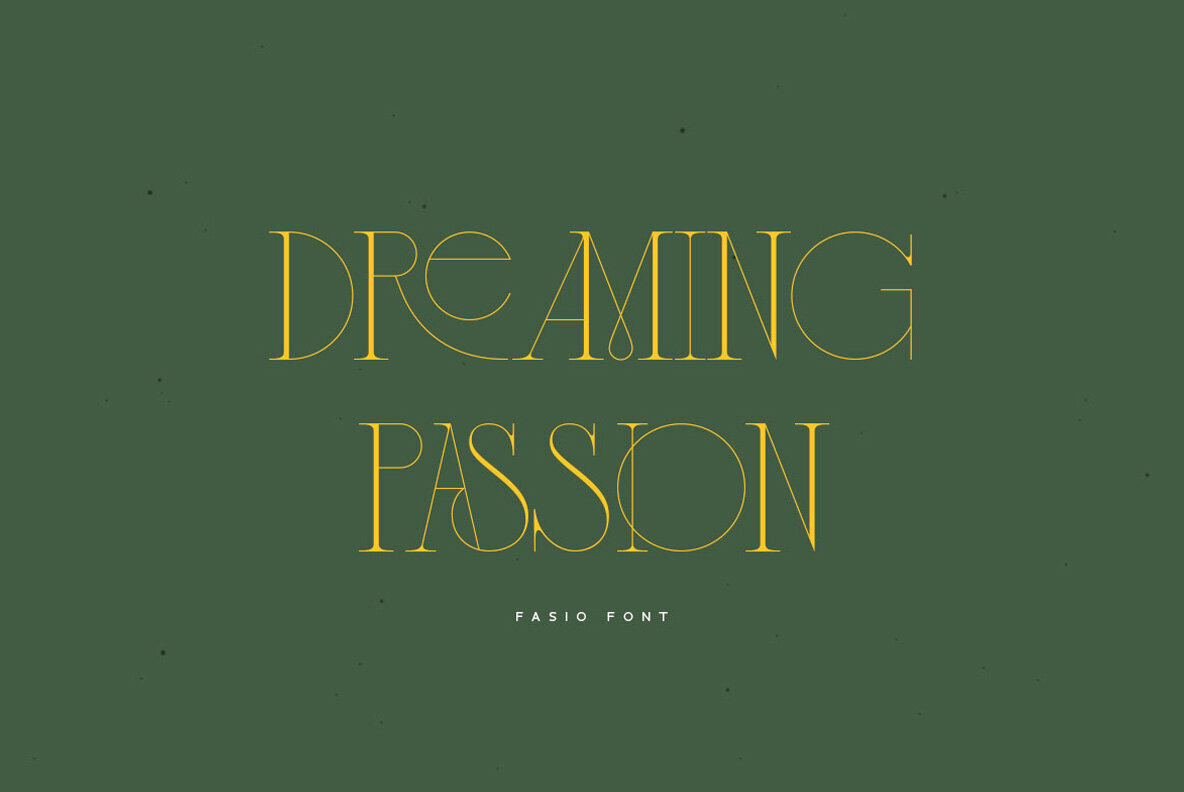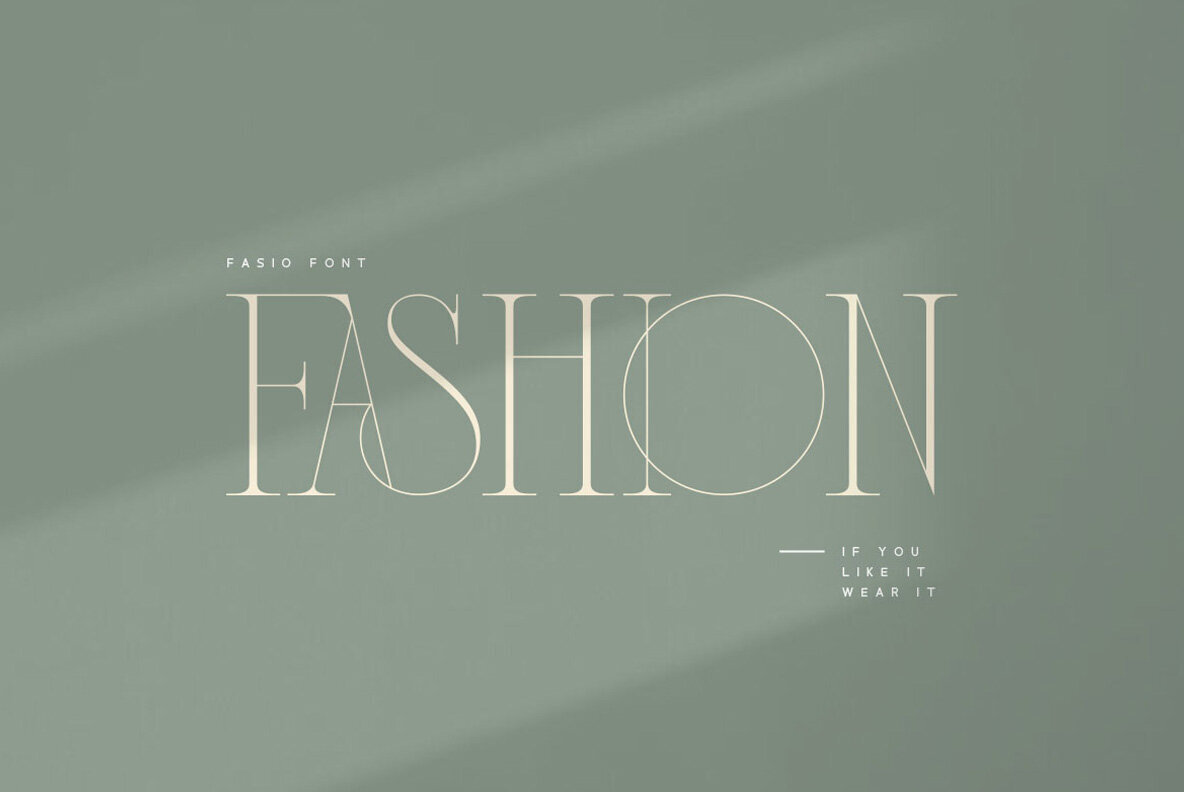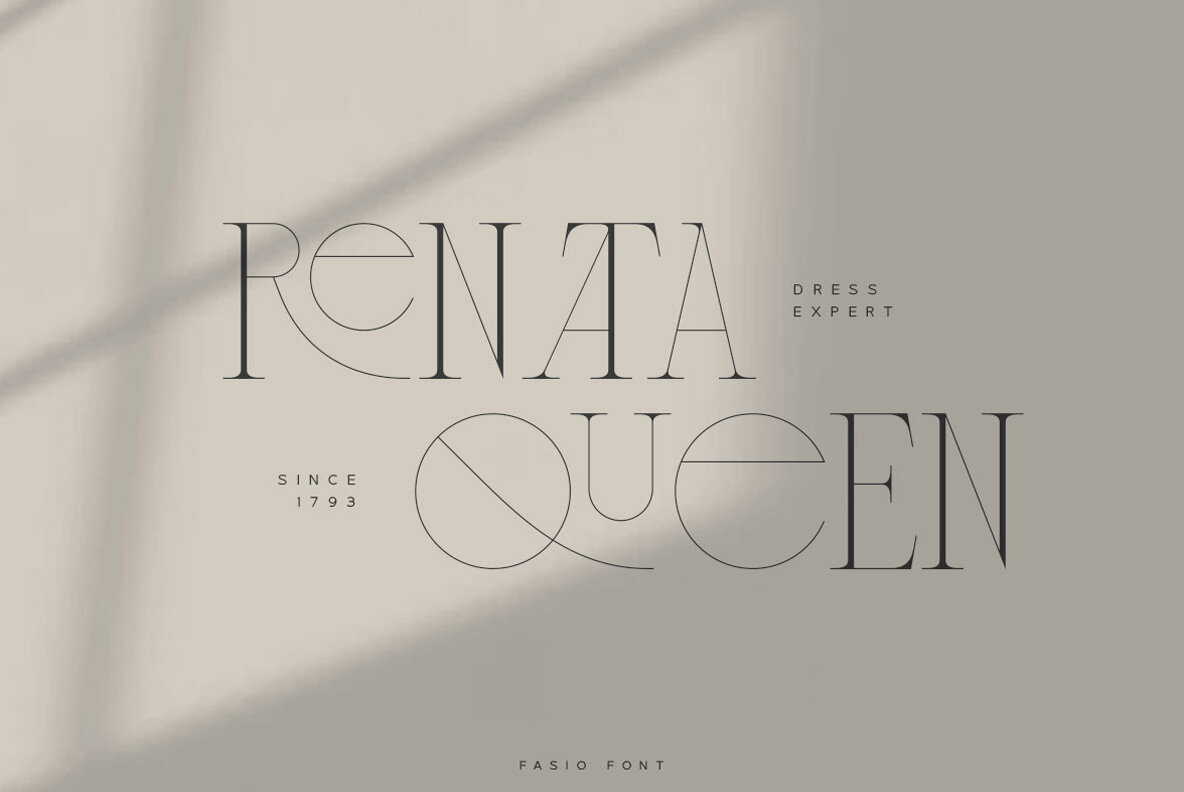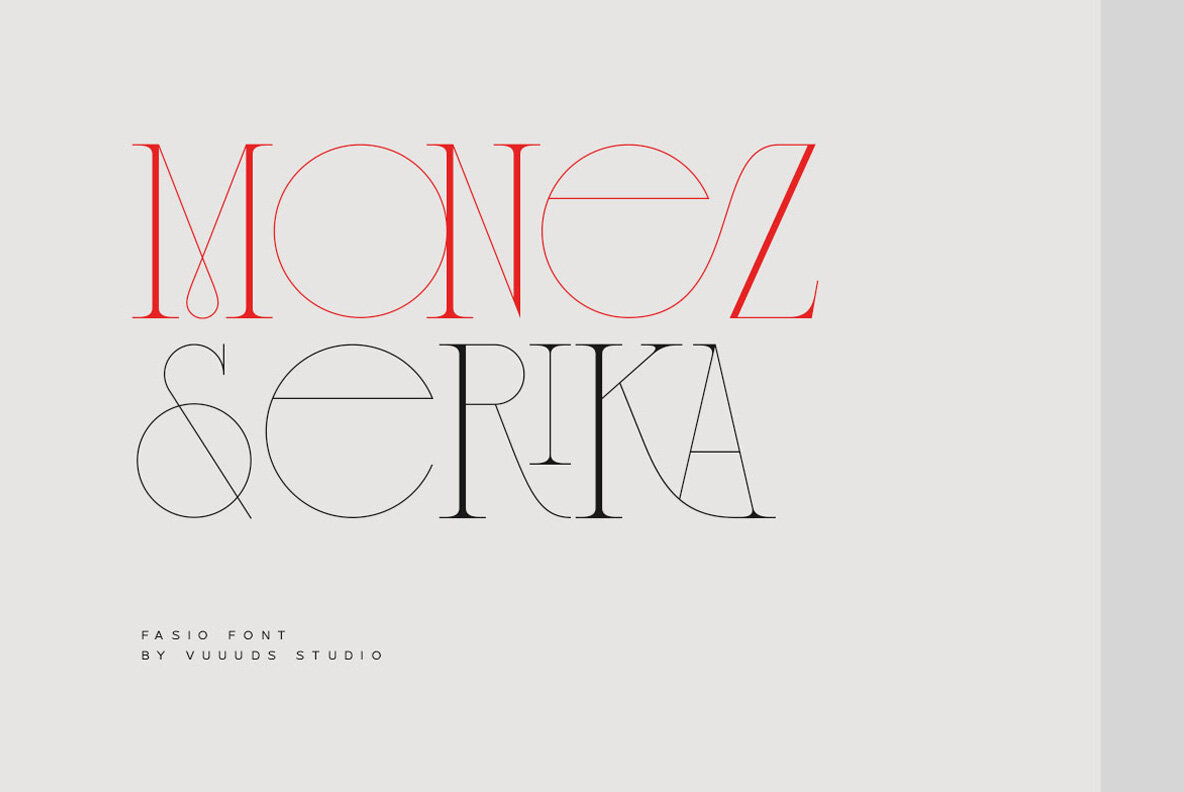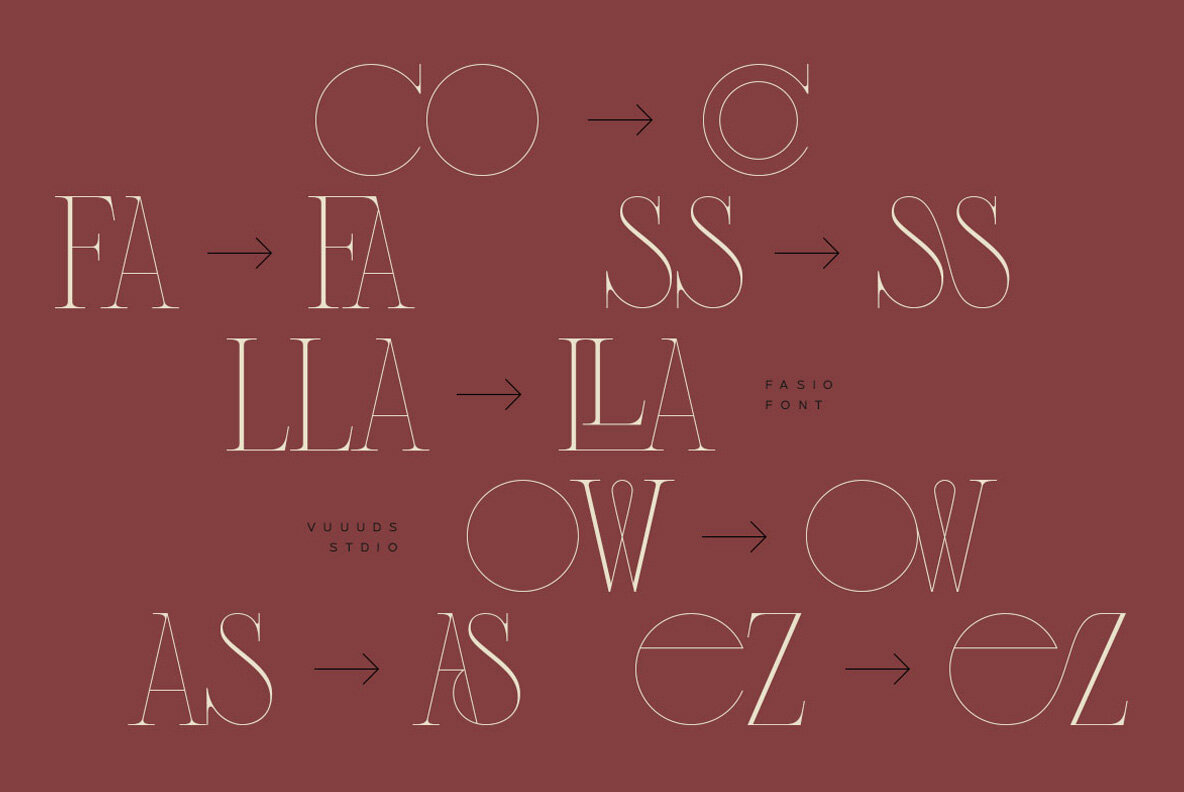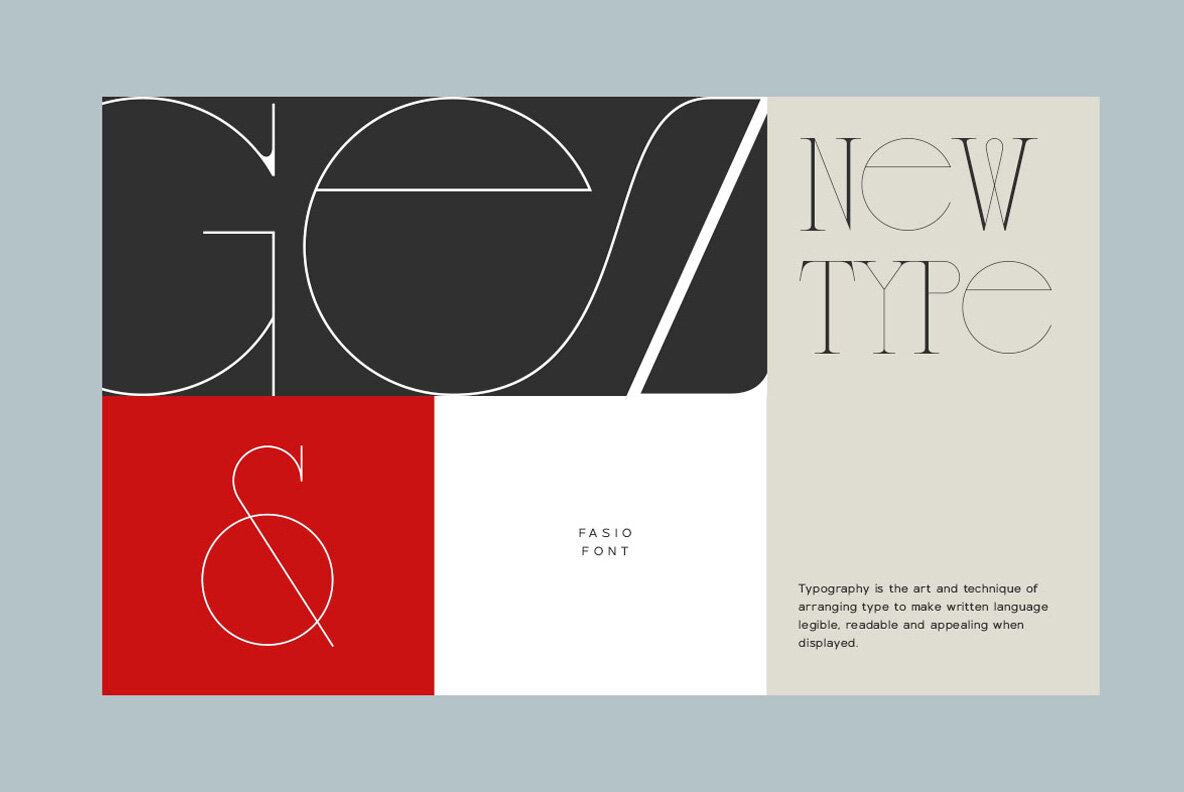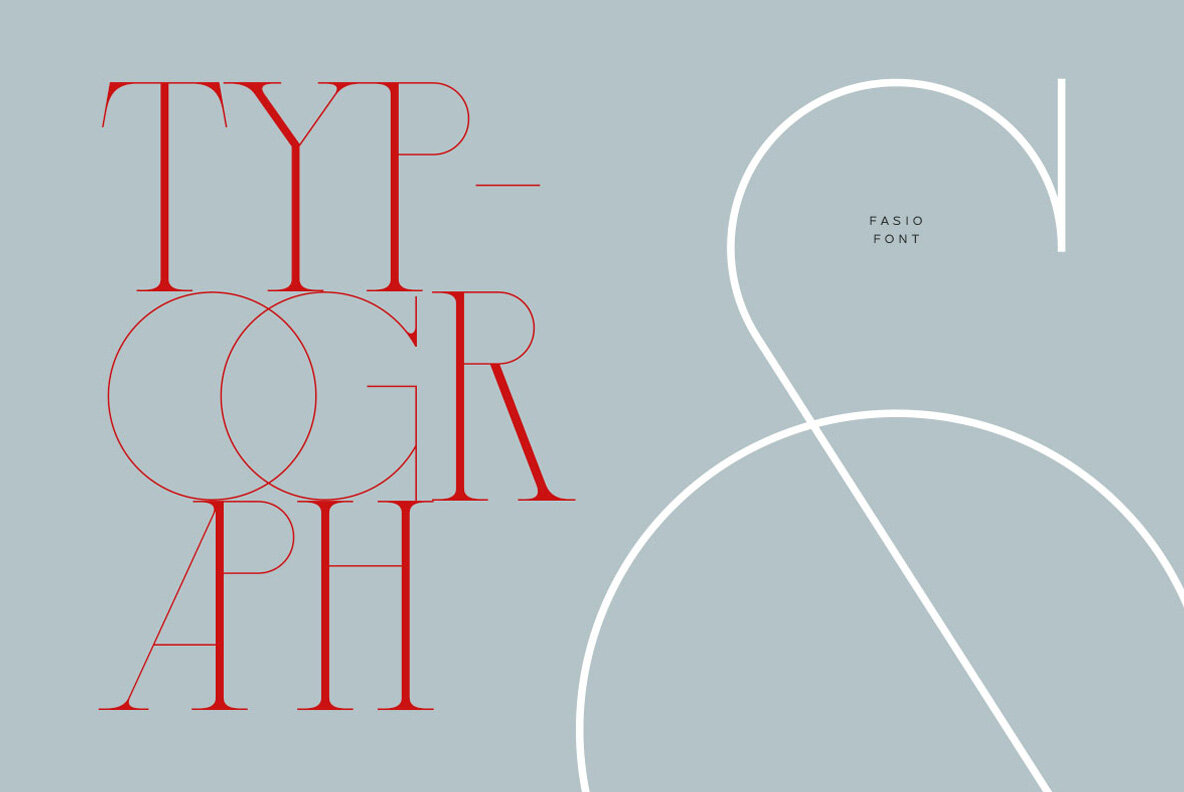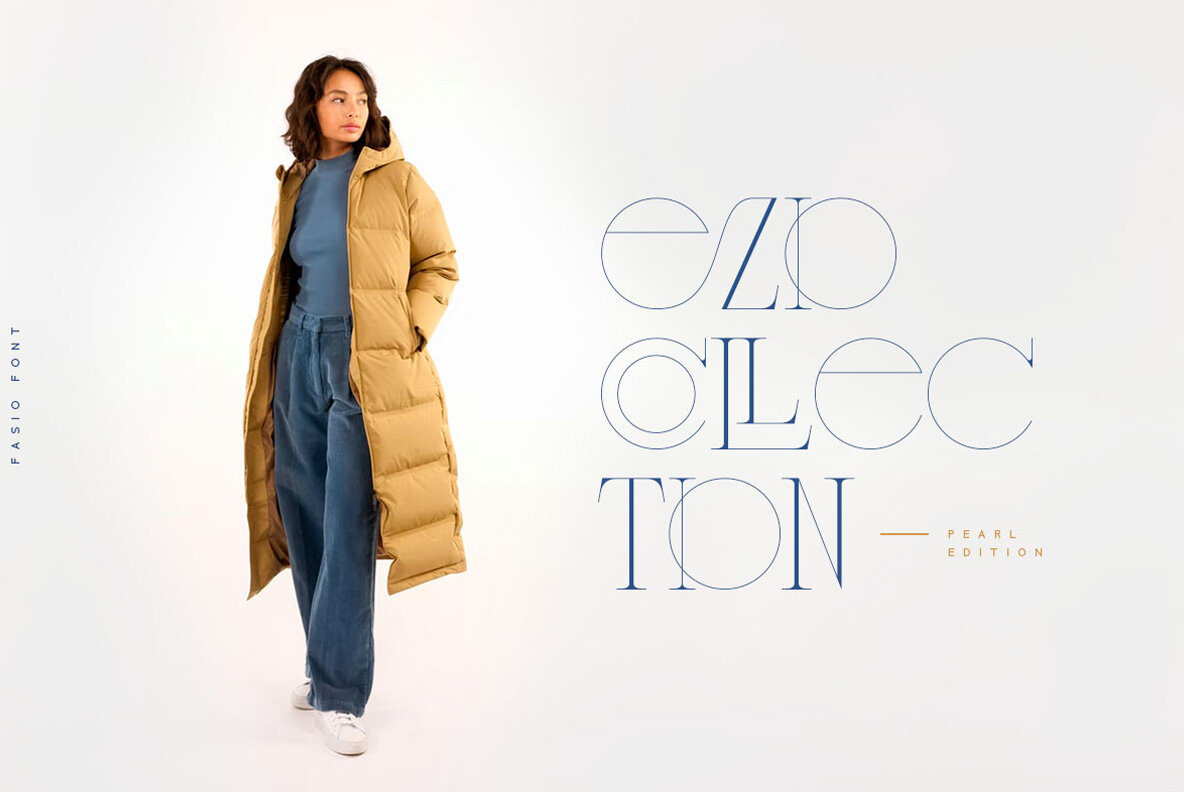
Fasio Font
Fasio Regular
Fasio is a contemporary serif font that meticulously combines a classic sensibility with modern design. Each letter is thoughtfully crafted to achieve a distinctive look that enhances your typographic compositions.Fasio: Modern Serif Font with Unique Style